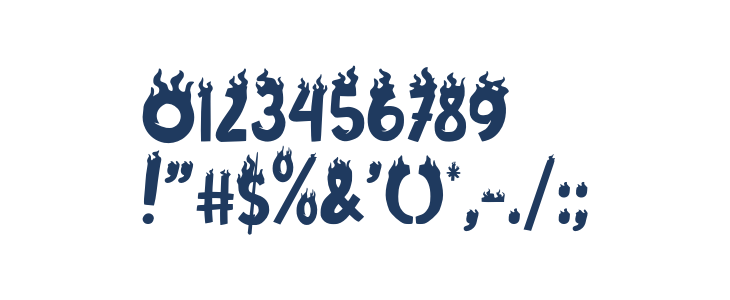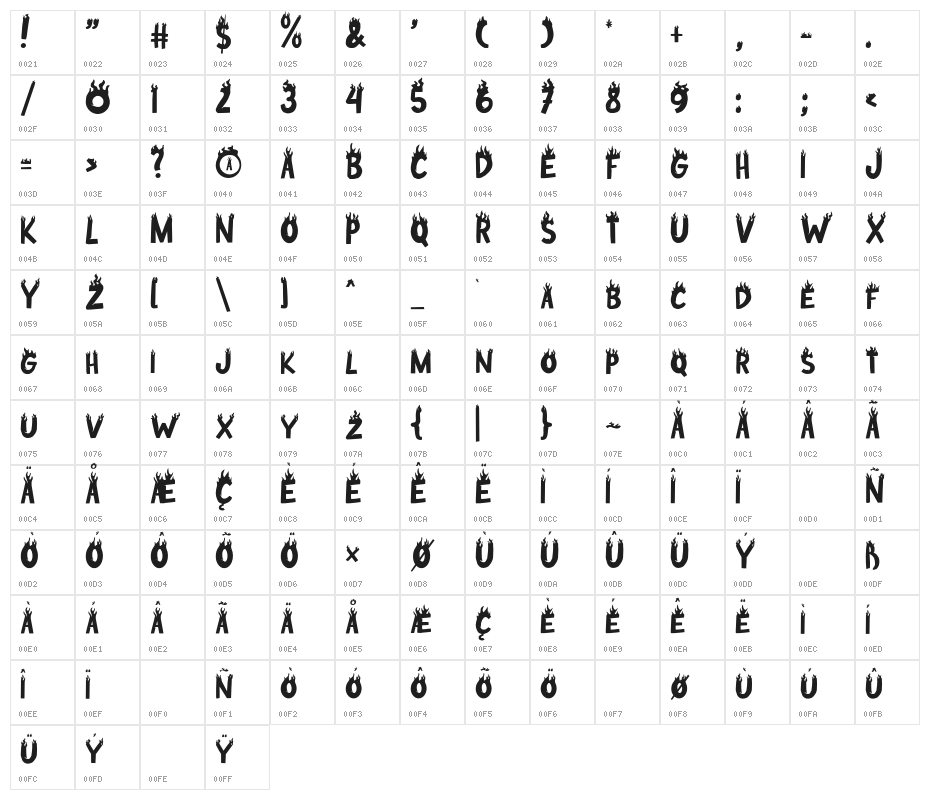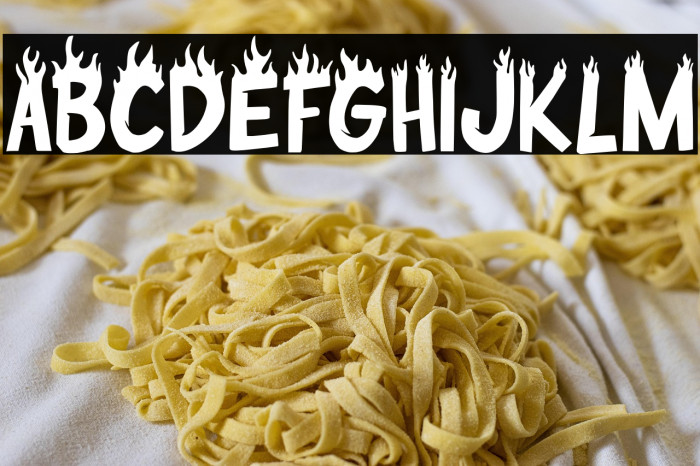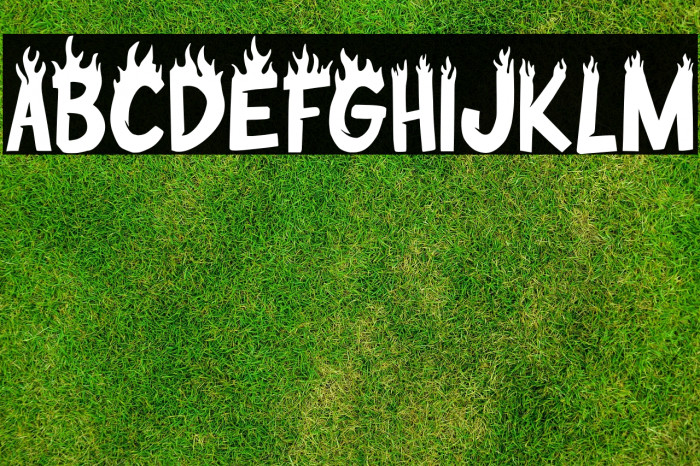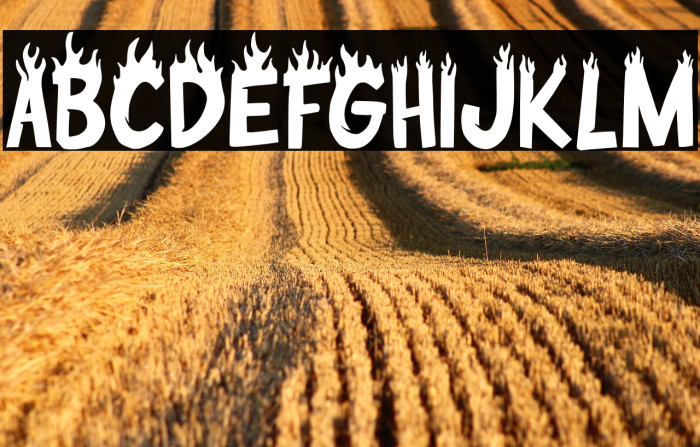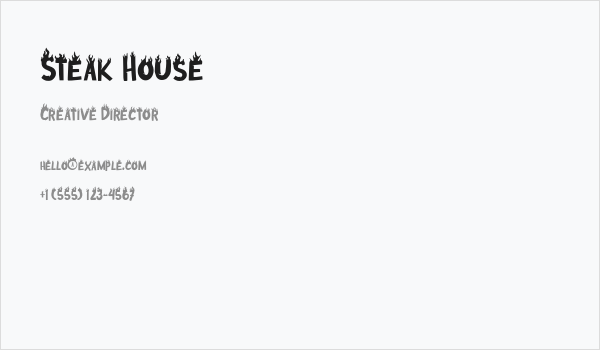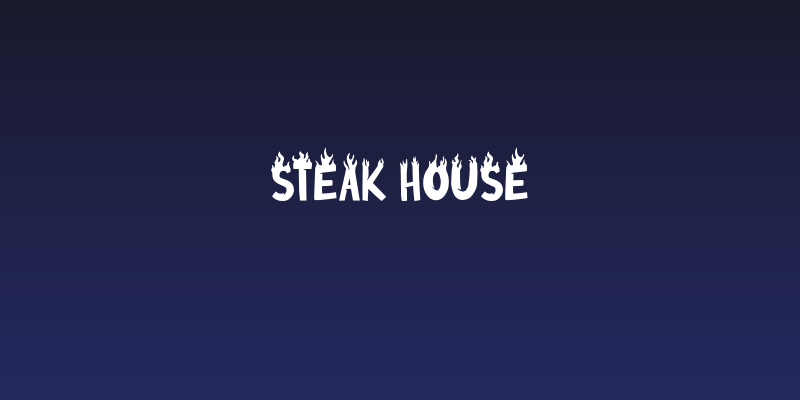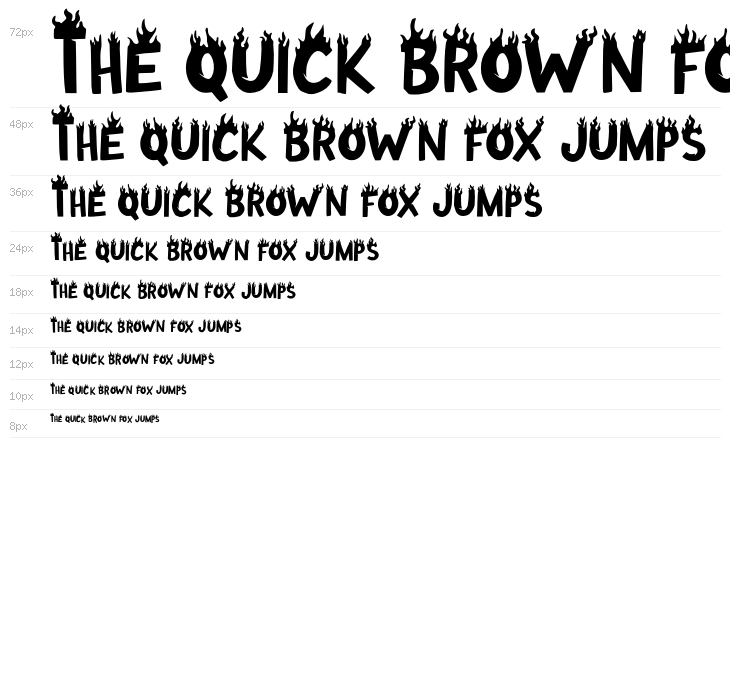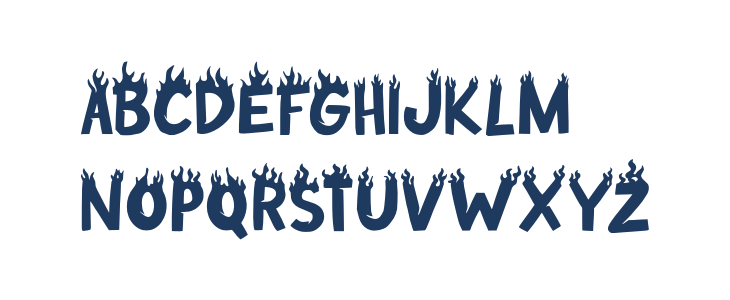
Steak House Font
Steak House Description
This font features bold, uppercase and lowercase letters with a unique flame-like design extending from the top of each character, creating a dynamic and energetic appearance. The numbers and special characters also share this fiery motif, making the font highly distinctive and eye-catching. The strokes are thick and consistent, providing a strong visual impact. This font is perfect for projects that require a bold statement or a theme related to heat, fire, or excitement.
| Proposed Projects | Ideal for branding related to fire-themed events, BBQ restaurants, or any project needing a bold, energetic typeface. |